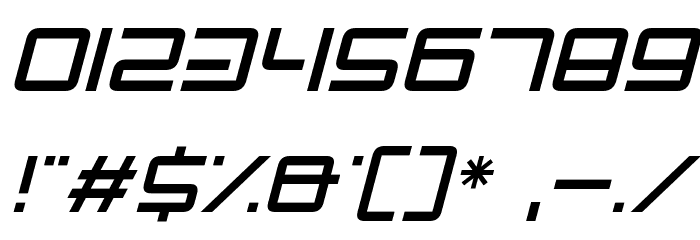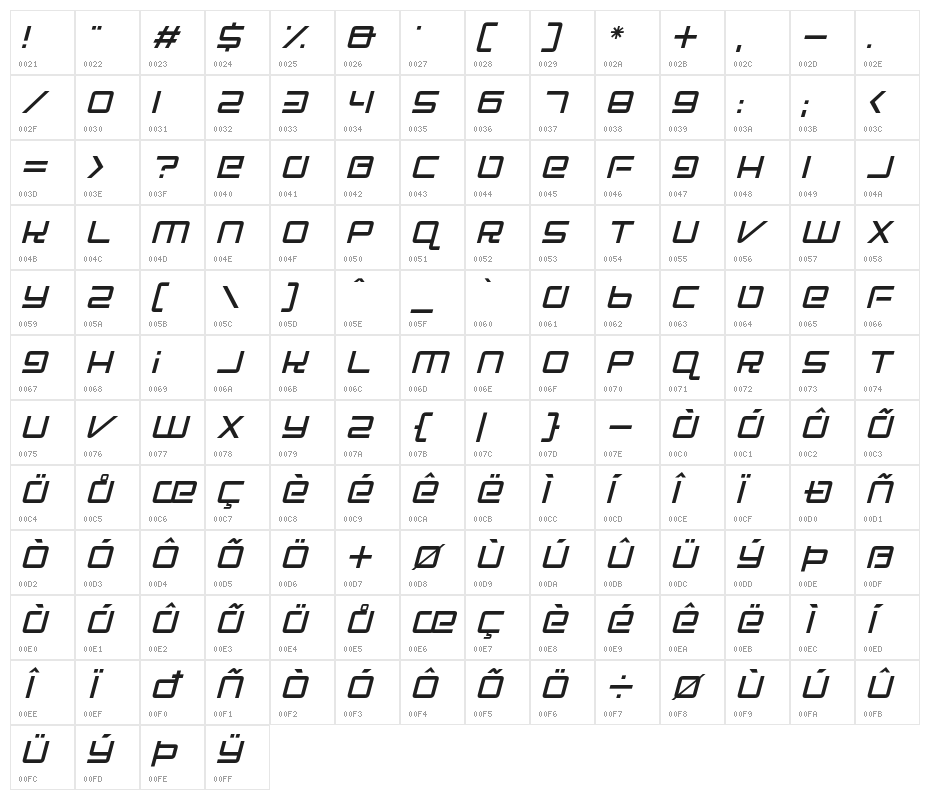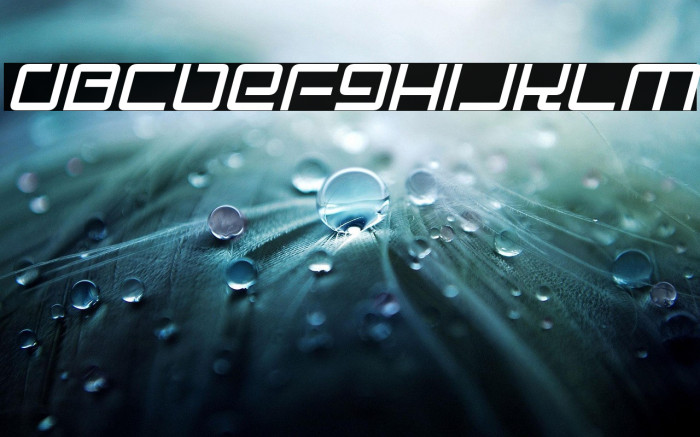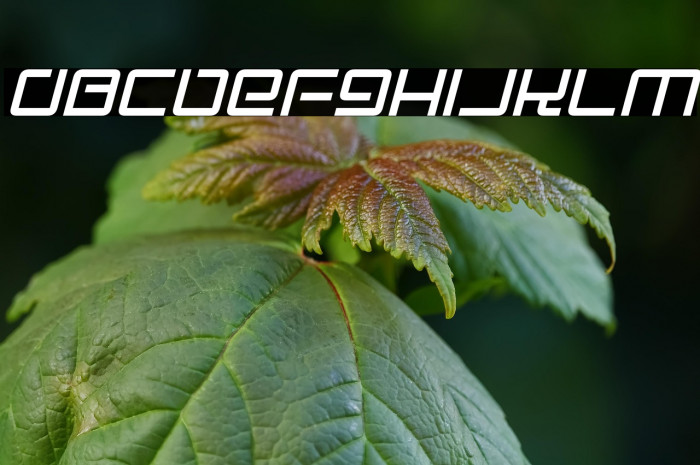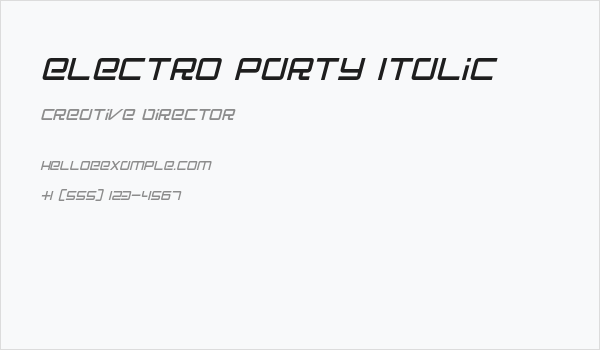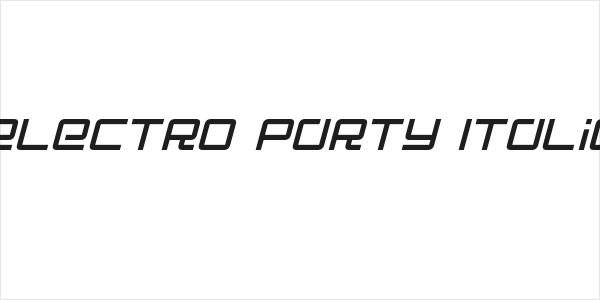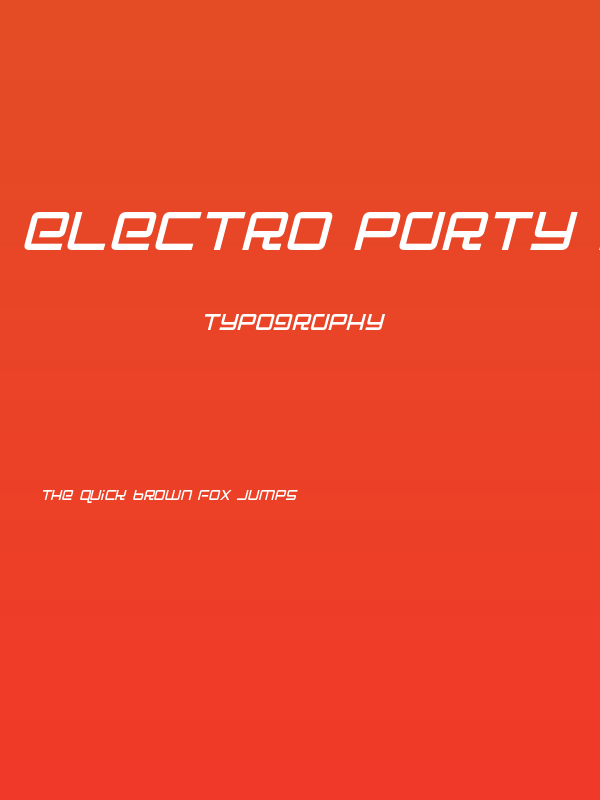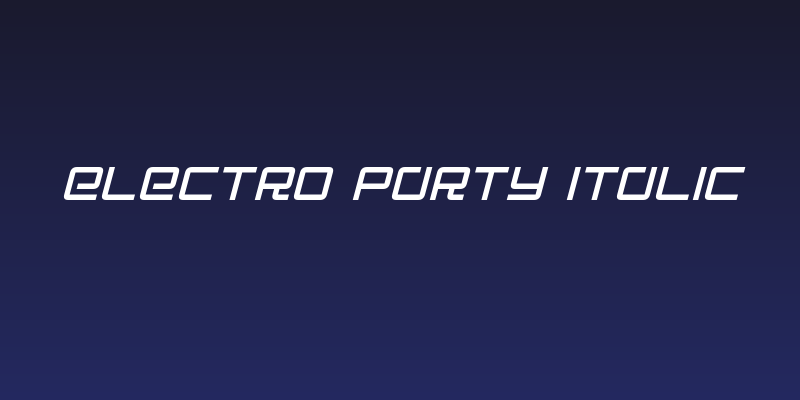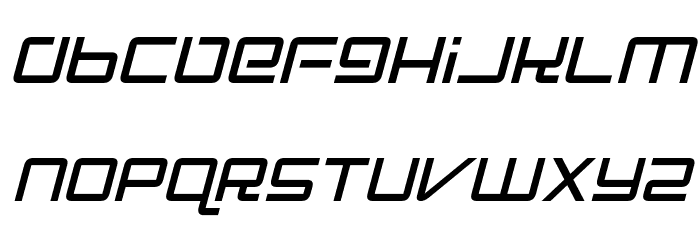
Electro Party Italic Font
Electro Party Italic Description
This font features a sleek, futuristic design with a distinct italic slant, giving it a dynamic and energetic appearance. The characters are constructed with clean, geometric lines and rounded edges, creating a sense of movement and modernity. The uniform stroke width across all characters contributes to a cohesive and streamlined look. The font's angular nature and slightly condensed form make it ideal for projects that require a contemporary and tech-savvy aesthetic. Its unique style is well-suited for digital interfaces, gaming titles, and branding that aims to convey innovation and forward-thinking.
| Proposed Projects | Ideal for digital interfaces, gaming titles, tech branding, and innovative product designs. |